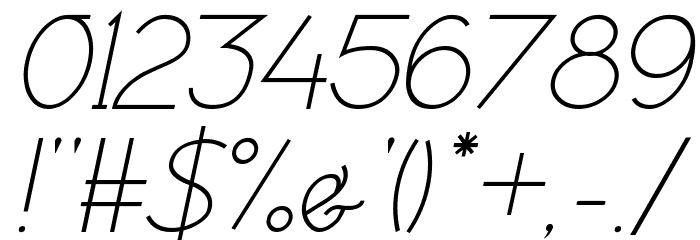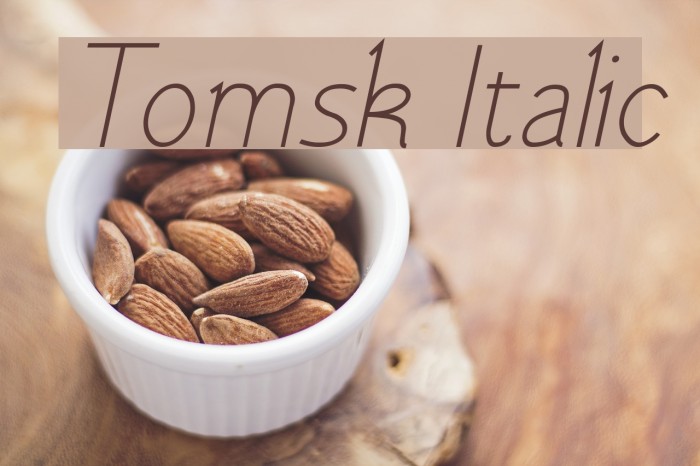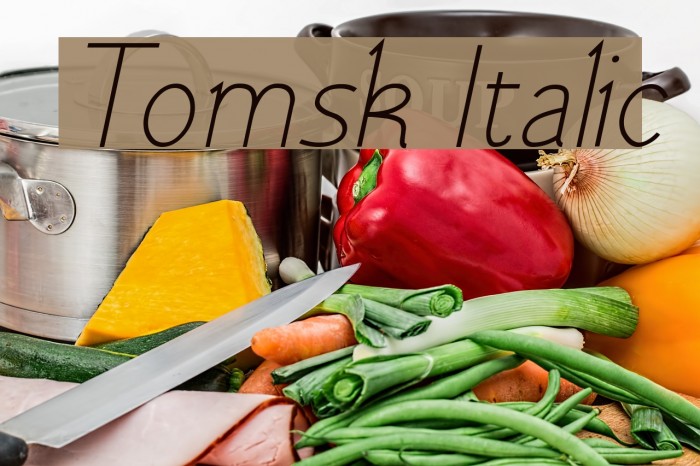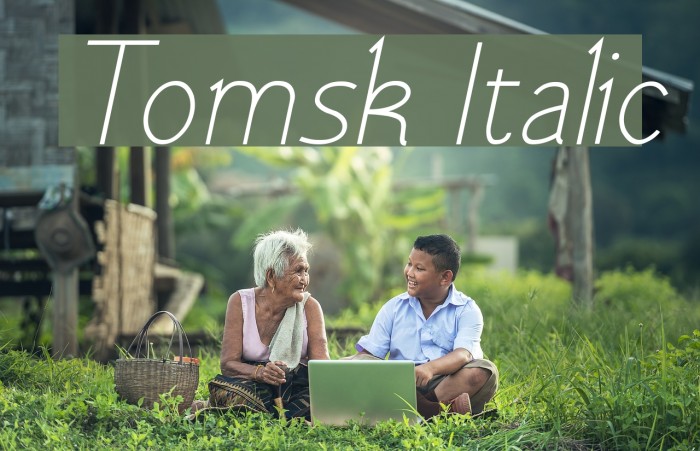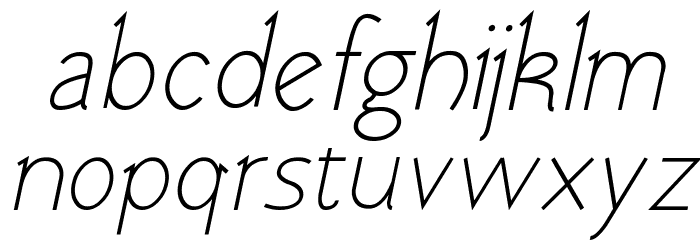
Tomsk Italic Font
This font features a sleek, italicized style with a modern flair. The characters are elegantly slanted, giving a sense of motion and sophistication. The uppercase letters are tall and slightly narrow, while the lowercase letters maintain a consistent flow with smooth curves. The numerals are clean and straightforward, complementing the overall aesthetic. Special characters are distinct and maintain the font's cohesive style. The thin strokes and minimal contrast between thick and thin lines contribute to its refined appearance.
A sleek, italicized font with a modern and sophisticated style.
• Proposed Projects: Ideal for fashion magazines, elegant branding, modern websites, and artistic posters.
• Category: Modern
• Contrast: Low
• Overall Style: Modern
• Use Case: Headlines, Logos